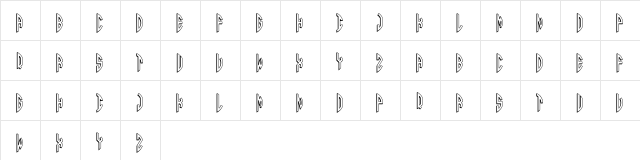
Round_3D_Monogram_Right Regular Font Preview
Round_3D_Monogram_Right Regular
Design Context for Round_3D_Monogram_Right Typeface
Round_3D_Monogram_Right uses fixed-width spacing throughout, giving it the structured, systematic character associated with coding environments and technical documentation.